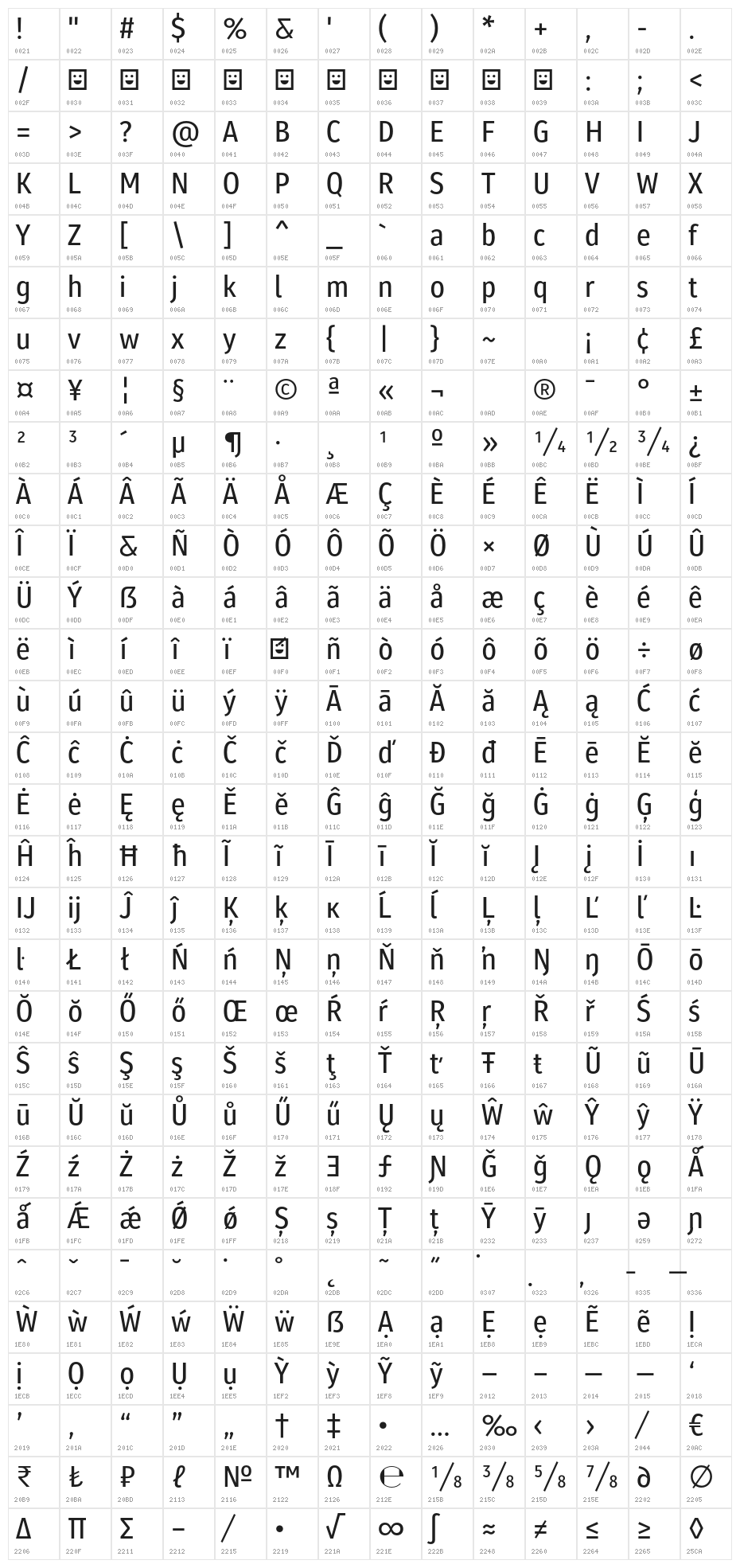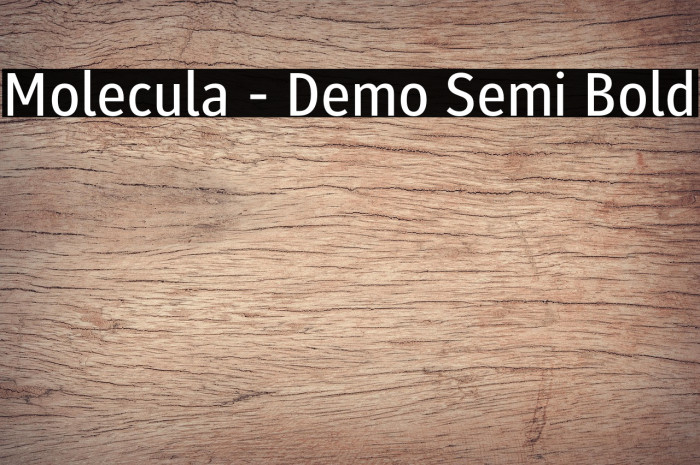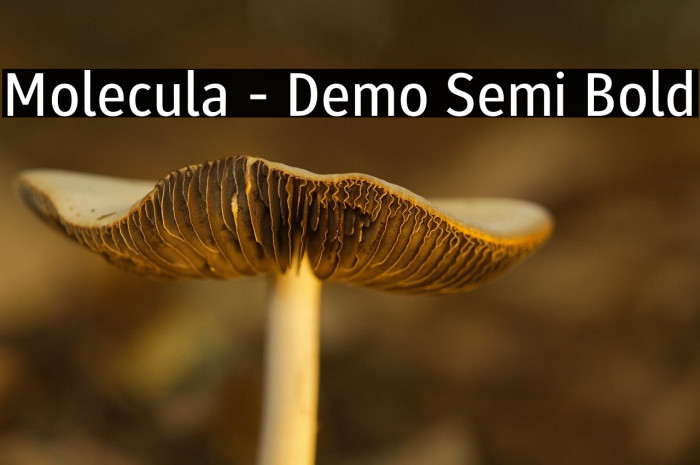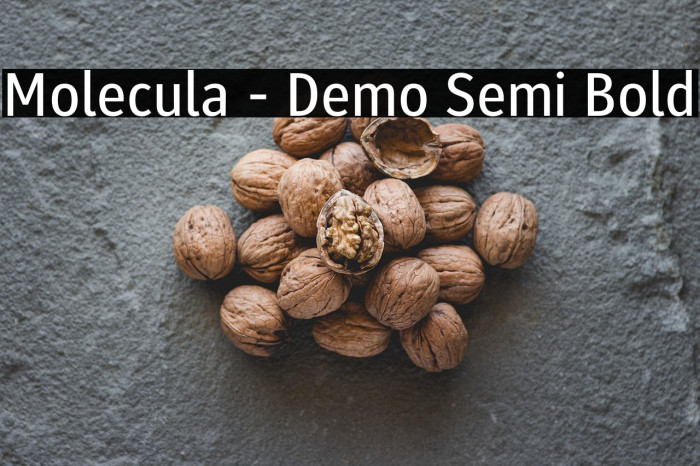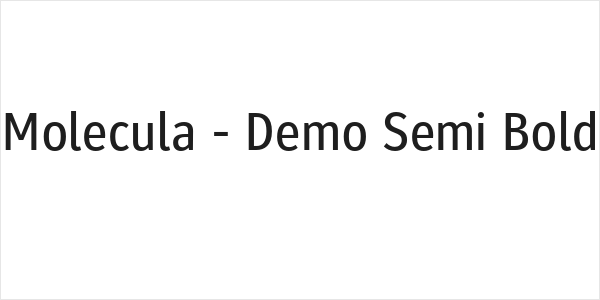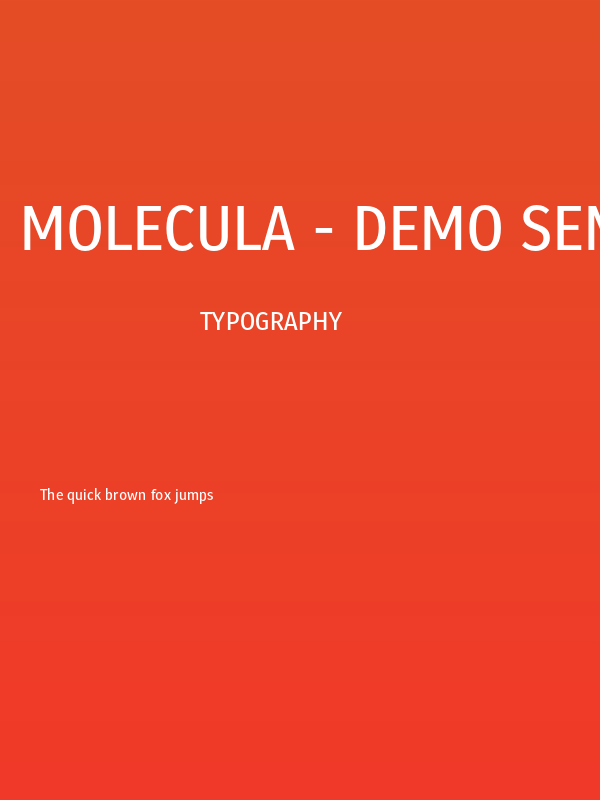
Molecula - Demo Semi Bold Font
Molecula - Demo Semi Bold Description
This font features a clean and modern sans-serif style with a semi-bold weight, offering a balanced and professional appearance. The characters are well-defined with consistent stroke widths, providing a uniform look across both uppercase and lowercase letters. The numerals and special characters maintain the same clarity and precision, making them easily legible. The font's design is versatile, suitable for a wide range of applications from digital to print media. Its straightforward and uncluttered aesthetic makes it ideal for conveying information clearly and effectively.